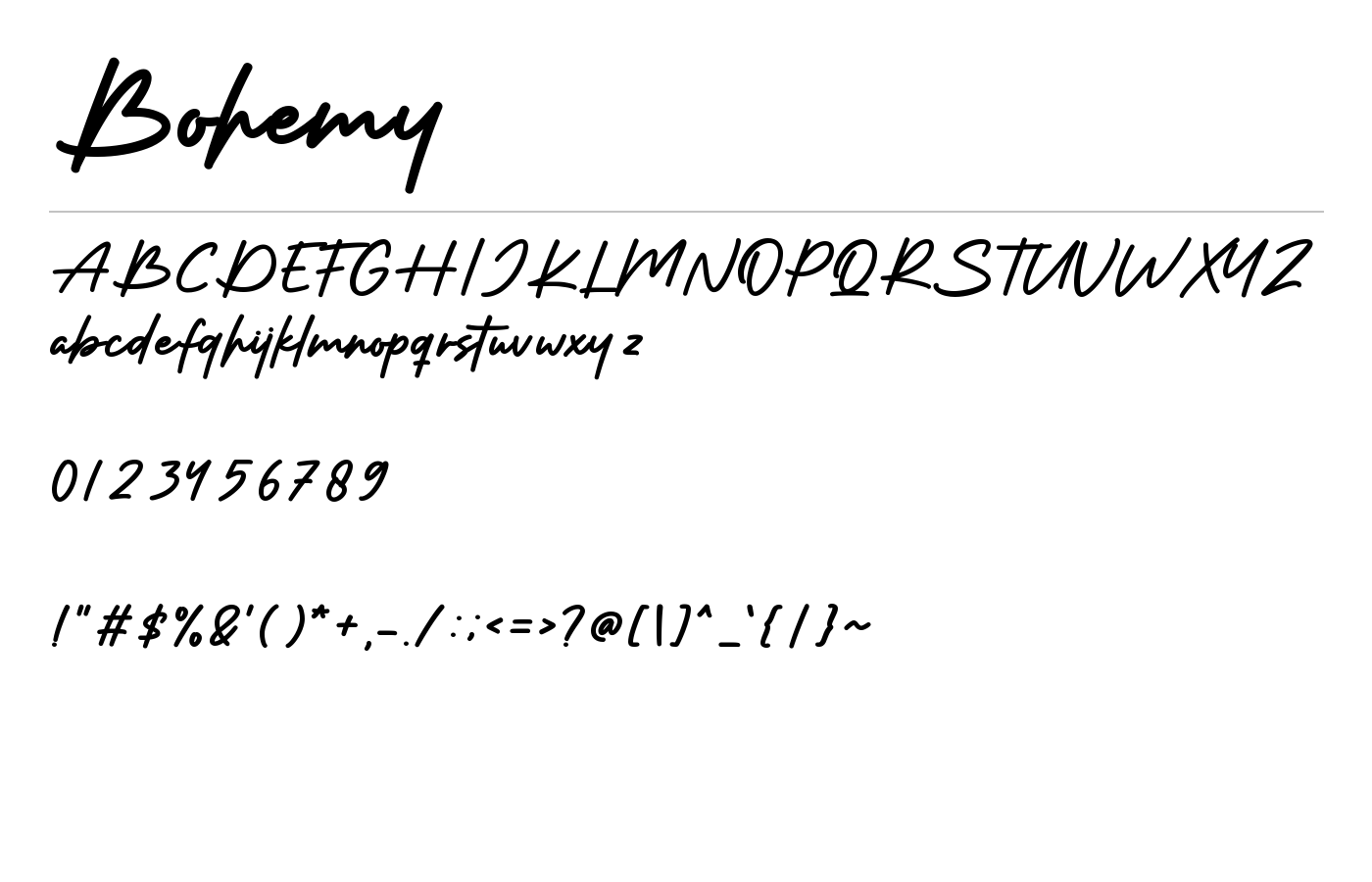
Bohemy is a casual, hand-drawn script font with a lively and personal feel. Its smooth, flowing strokes and slightly irregular shapes give it an authentic, handwritten charm, making it perfect for creative branding, invitations, and any project needing a friendly, approachable touch. This font works well in logos and headlines where a natural, informal style is desired.
Bohemy Font